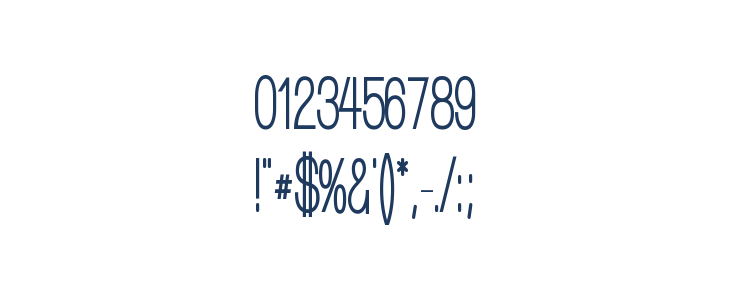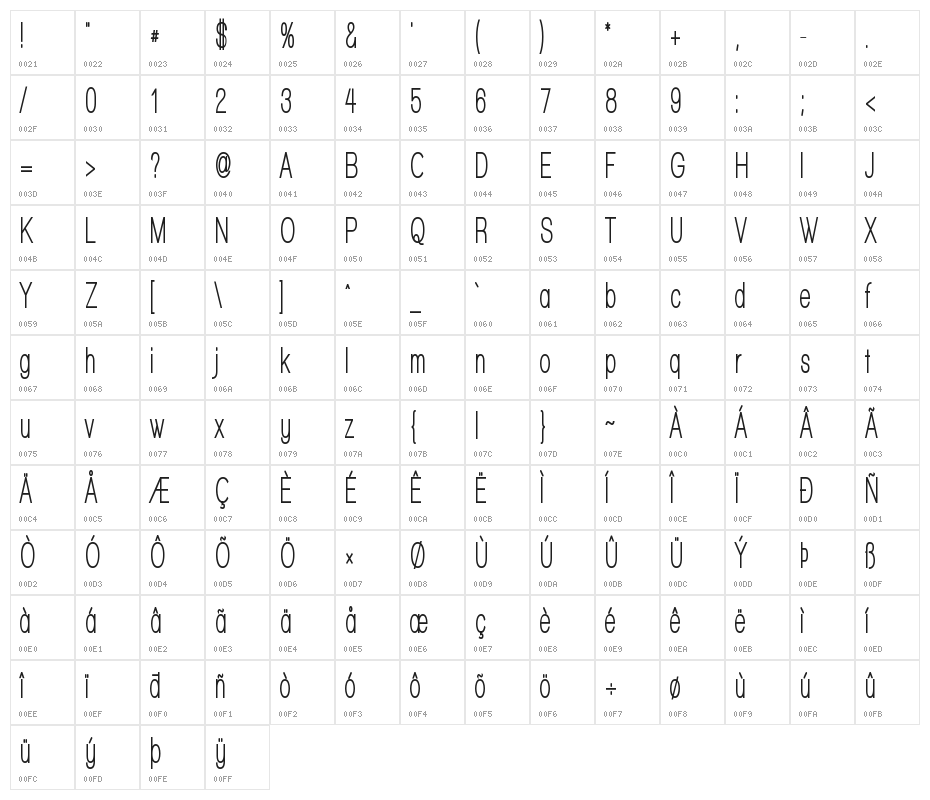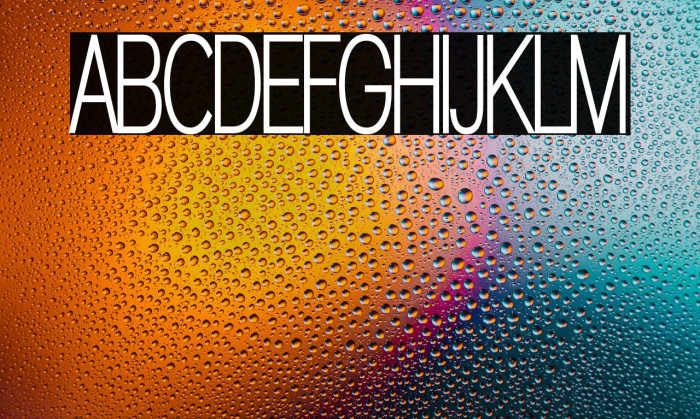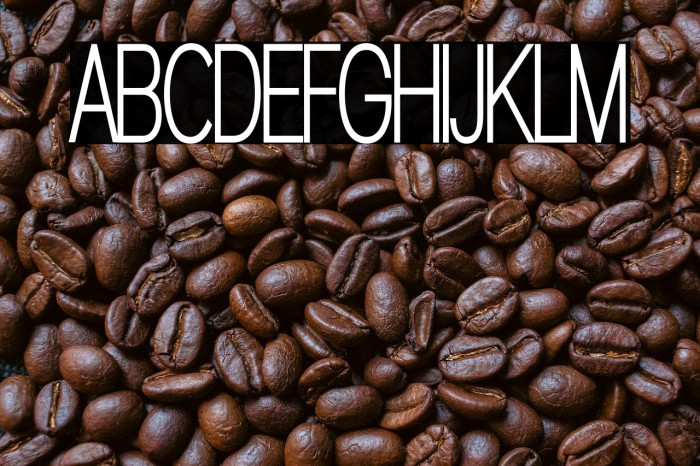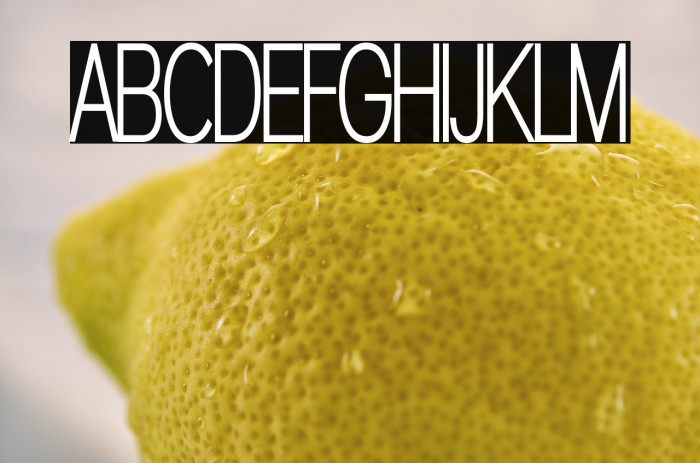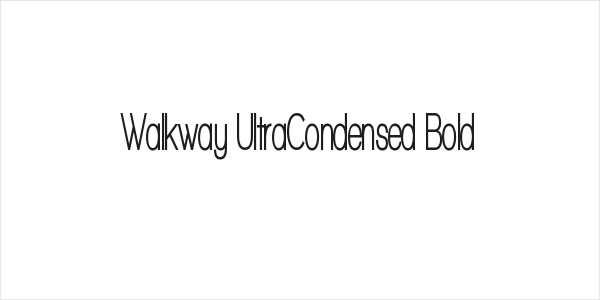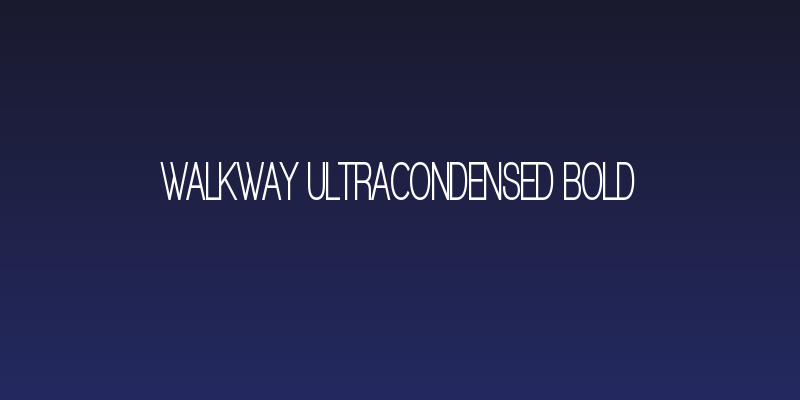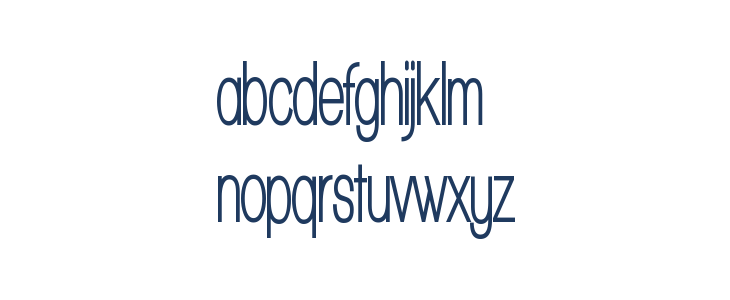
Walkway UltraCondensed Bold Font
Walkway UltraCondensed Bold Description
This font is characterized by its ultra-condensed and bold appearance, offering a modern and sleek look. The uppercase and lowercase letters are tall and narrow, with consistent stroke widths that contribute to a clean and minimalist aesthetic. The numerals and special characters maintain the same condensed style, ensuring uniformity across all glyphs. This font's design is ideal for creating a strong visual impact while maintaining readability, making it suitable for various design applications.